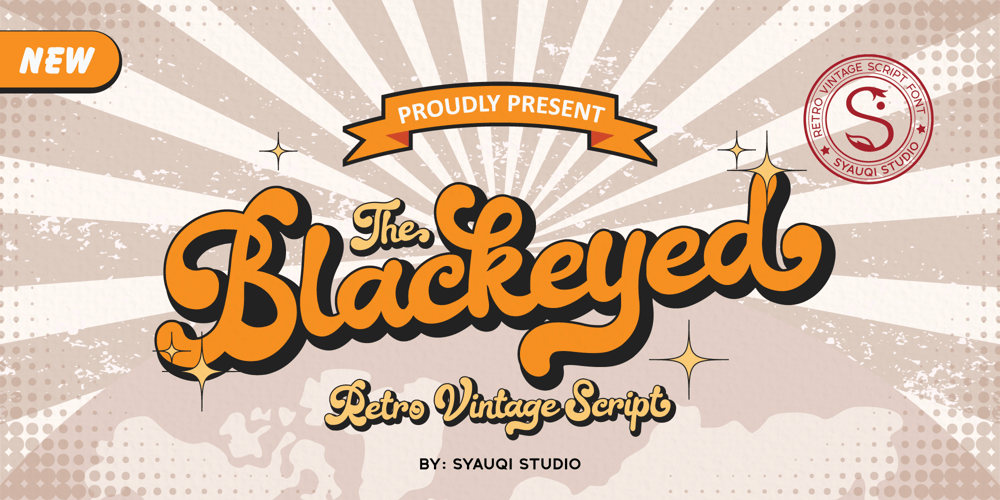
The Blackeyed Font Family was designed by Muhammad Asroful Umam and published by Syauqi Studio. The Blackeyed contains 1 styles and family package options. The Blackeyed Font – Vintage Retro Script StyleIntroducing The Blackeyed, a charming and sophisticated font that effortlessly blends retro vibes with modern elegance. Inspired by classic script styles, The Blackeyed captures the timeless essence of vintage typography, yet remains clean, playful, and incredibly versatile. Perfect for those who seek a balance between nostalgia and contemporary flair, this font is your go-to choice for creating stunning designs that stand out with personality and style.The Blackeyed offers more than just a beautiful typeface, it’s a visual statement that adds character and sophistication to every project. Whether you’re working on a retro-inspired design or a fresh, modern concept, this font will elevate your creations to new heights.Ideal Uses: Branding & Logos: The bold, stylish curves of The Blackeyed bring an elegant touch to any brand, whether you’re designing for fashion, food, or lifestyle products. Invitations & Stationery: Perfect for weddings, parties, and special events, The Blackeyed adds a touch of refinement to personal invitations, greeting cards, and stationery sets. Product Packaging: Bring an eye-catching retro flair to your product labels, packaging, and merchandise with this unique font. Social Media Graphics: Make your posts stand out with a font that catches attention while maintaining a sense of warmth and authenticity. Poster & Event Promotion: Whether for vintage-style What Included?Uppercase & Lowercase | Number & PunctuationStylish Alternates, SwashesMultilingual SupportsBring your designs to life with The Blackeyed. Where vintage meets modern with style and charm. Download now and make your projects unforgettable!